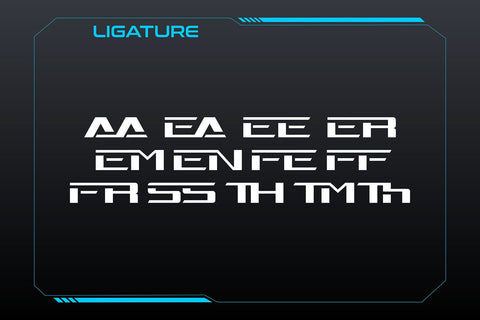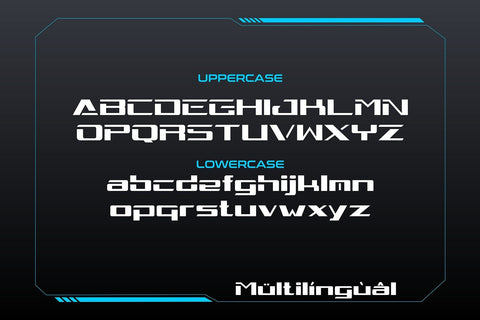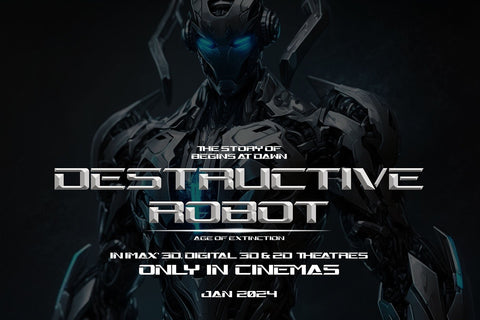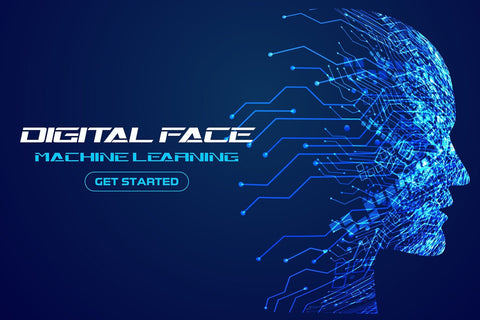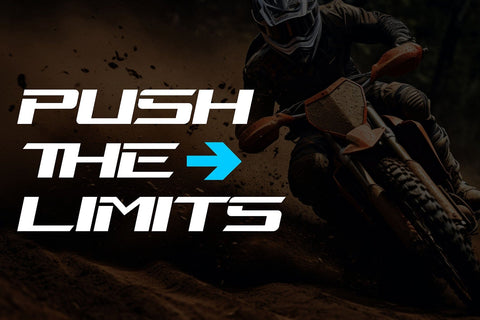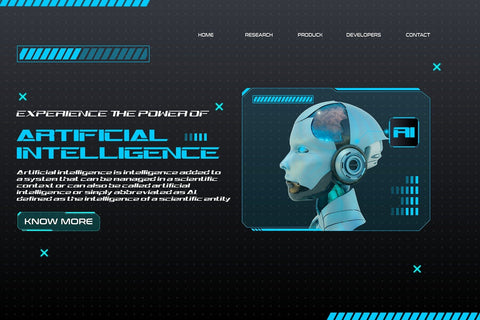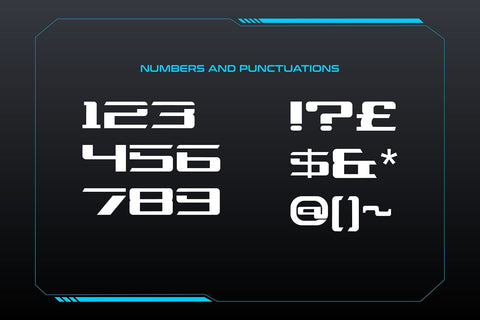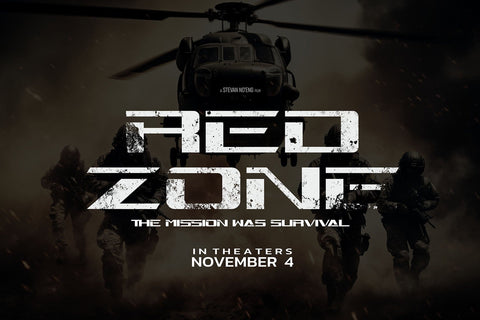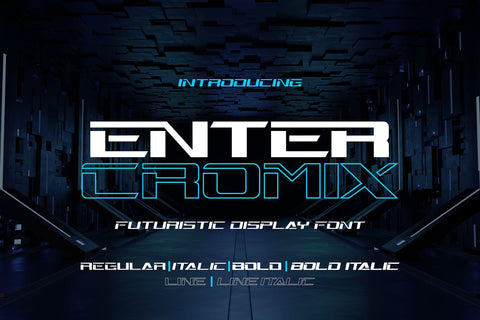
Enter Cromix - Futuristic Display Font
"Enter Cromix" is described as a futuristic display font that comes with multiple styles, including bold, italic, and outline. Fonts with a futuristic design often feature sleek and modern letterforms that convey a sense of innovation and cutting-edge aesthetics.